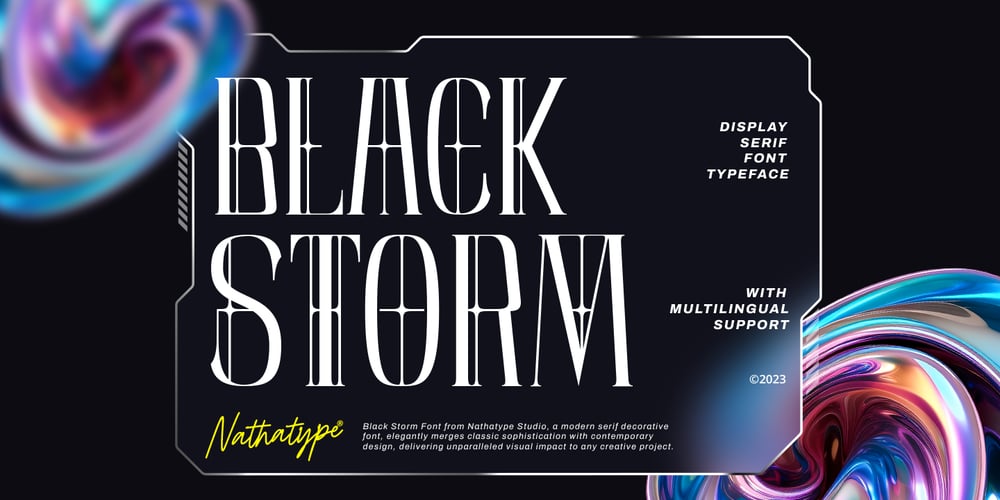
Black Storm Font Family was designed by Donis Miftahudin and published by Nathatype. Black Storm contains 1 styles and family package options. Black Storm, a captivating serif display font, commands attention with its bold presence and refined aesthetics. It’s a versatile tool that empowers your projects with a sense of authority and intricate detailing.The characters in Black Storm are boldly large, ensuring a striking visual impact suitable for attention-grabbing designs. The stable letter size contributes to a balanced and authoritative aesthetic. What elevates Black Storm to new heights is the thoughtful incorporation of additional lines and ornaments, meticulously placed to create a harmonious blend of structure and embellishment. In addition, enjoy the features here.Features: Alternates Multilingual Supports PUA Encoded Numerals and Punctuations Black Storm fits in headlines, logos, posters, flyers, branding materials, greeting cards, print media, editorial layouts, and many more designs. Find out more ways to use this font by taking a look at the font preview.Thanks for purchasing our fonts. Hopefully, you have a great time using our font. Feel free to contact us anytime for further information or when you have trouble with the font. Thanks a lot and happy designing.